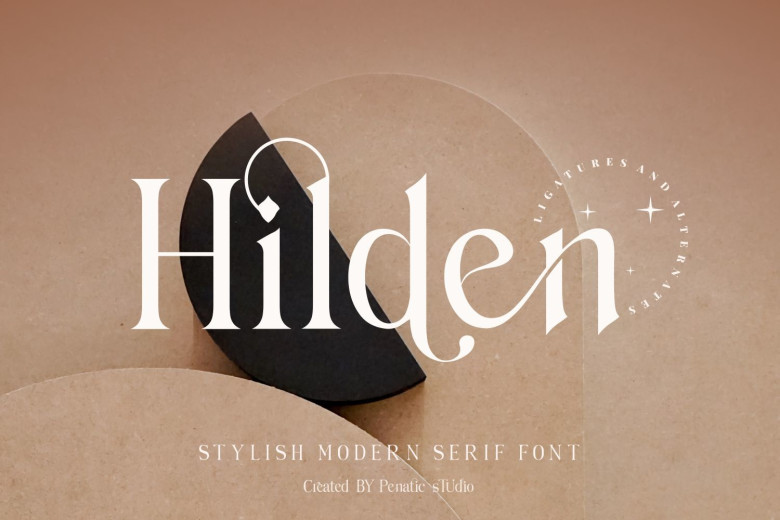
Hilden Font
Hilden Font is a very elegant and beauty serif typeface that perfect for use in many places. Such as logo design, business card, fashion brand, product packaging, magazine, websites, views, or direct on the background image, text overlay, etc. This font is completed with modern ligature and beautiful alternative fonts.
Hilden Serif Font